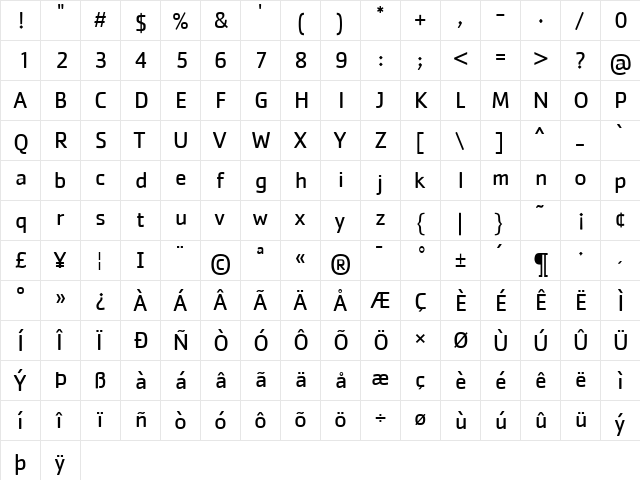
CachetBook Regular
Design Context for CachetBook Typeface
CachetBook is a composed and adaptable typeface that performs quietly and consistently across a wide range of design contexts.
Pro Tip: Pair CachetBook with a font of contrasting weight or personality to build a more expressive typographic hierarchy.